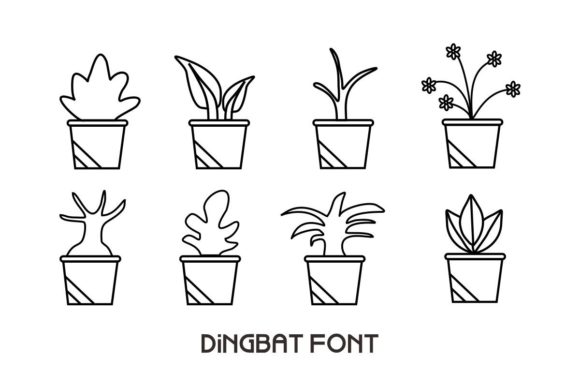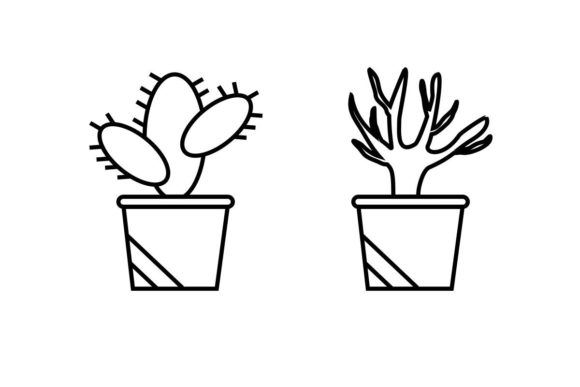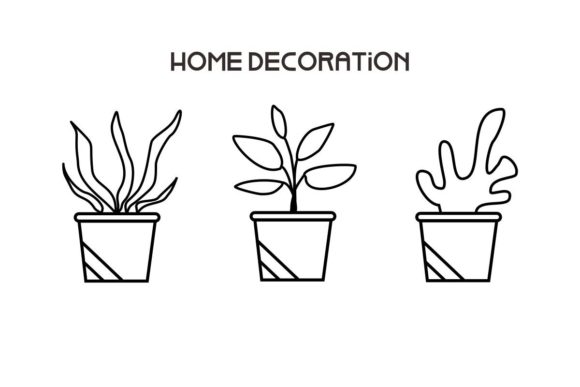
The Secret to Elevating Your Designs: House Plant Font
Have you ever found yourself rummaging through your craft supplies, searching for the perfect combination of materials to bring your creative vision to life? The thrill of the hunt, the excitement of the unknown, and the satisfaction of finally finding that one special something that makes your project pop – it’s a feeling we’ve all experienced at some point or another.
For designers and crafty enthusiasts, the right font can be just that elusive ingredient that takes your design from good to great. That’s where House Plant Font comes in – a charming dingbats font that’s perfect for adding a touch of whimsy and personality to your projects.
House Plant Font Key Features
- Unique Characteristics: Hand-drawn, organic shapes and lines, with subtle texture and imperfections to evoke a natural feel
- Kerning and Ligatures: Custom-designed kerning pairs and ligatures for improved readability and aesthetic appeal
House Plant Font Review
At first glance, the House Plant Font seems like a charming addition to any design project. ✨ The delicate, hand-drawn style is reminiscent of classic botanical illustrations, and the subtle imperfections add a touch of organic charm. ✨ The font’s versatility also makes it suitable for a wide range of applications, from branding to packaging.
However, there are some limitations to consider. ⚠️ One of the main issues is the font’s spacing, which can be inconsistent and may require manual adjustments to achieve the desired look. ⚠️ Additionally, the font’s legibility can be compromised at smaller font sizes, which may limit its use in certain contexts.
- Delicate, hand-drawn style that evokes classic botanical illustrations
- Subtle imperfections add organic charm
- Highly versatile, suitable for branding, packaging, and more
- Inconsistent spacing may require manual adjustments
- Legibility can be compromised at smaller font sizes
Overall, the House Plant Font is a charming addition to any design project, but its limitations should be carefully considered before use. With some careful tweaking and adjustment, it can be a valuable asset in the right context.
Tips for Getting the Most Out of the House Plant Font
Experiment with different font sizes and styles to create a visually appealing design.
Use the House Plant Font in combination with other fonts to create a unique and eclectic look.
Consider using the font for headings, titles, or quotes to add a touch of whimsy to your design.
The House Plant Font is ideal for:
Designing garden or home decor-related materials, such as brochures or social media graphics.
Creating invitations or greeting cards for special occasions.
Developing branding materials for eco-friendly or sustainable businesses.
Alternatives to House Plant Font
Great Vibes is a beautiful, handwritten font perfect for adding a touch of elegance and sophistication to designs. It’s ideal for use in invitations, wedding stationery, and other special occasions. Great Vibes is more elegant and refined compared to House Plant Font, which is more playful and casual.
Pacifico is a modern, elegant script font that works well for headings, titles, and short paragraphs. It’s suitable for use in designs that require a sense of calmness and serenity, such as wellness, yoga, and spa-related materials. Pacifico is more refined and polished compared to House Plant Font, which is more whimsical and quirky.
Lobster is a fun, cursive font that’s perfect for adding a touch of playfulness to designs. It’s ideal for use in social media graphics, advertisements, and other promotional materials where a sense of excitement and energy is required. Lobster is more casual and laid-back compared to House Plant Font, which is more natural and earthy.